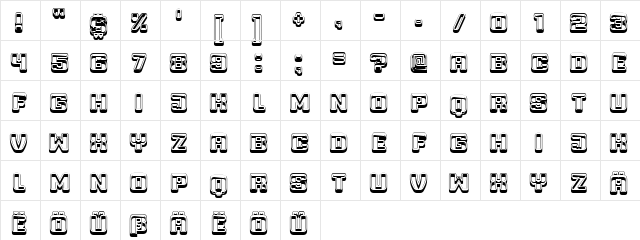
Shadow Regular
Regular · Vladimir Nikolic Vladimir Nikolic ·
DesignerVladimir Nikolic
Design Context for Shadow Typeface
Shadow is built around its visual character rather than neutral utility — its distinctive forms are designed to make an impression at display sizes.
Font Pairing: Pair with a clean neutral sans-serif for body copy to let Shadow's character lead without overwhelming the composition.
Pro Tip: Treat Shadow as the centrepiece of your typographic hierarchy. One strong heading set in a decorative face can carry an entire layout.